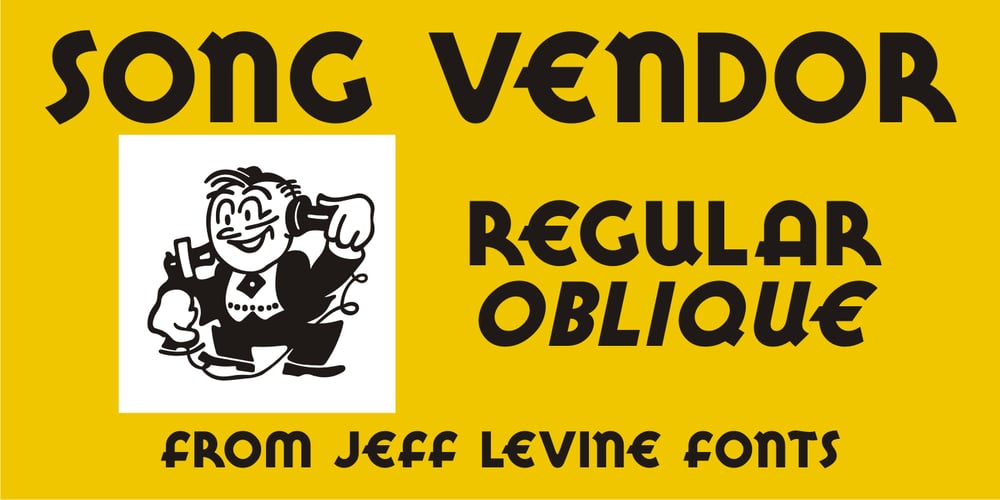
Song Vendor JNL Font Family was designed by Jeff Levine and published by Jeff Levine. Song Vendor JNL contains 2 styles and family package options. The hand lettered words “favorite songs” in the masthead of the 1940s British music collection “Albert’s Favourite Song Album No. 4” inspired Song Vendor JNL, which is available in regular and oblique versions.